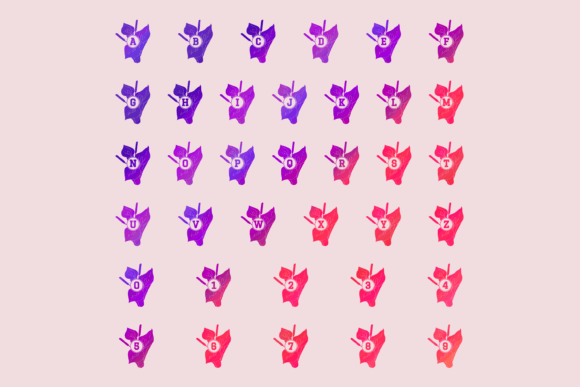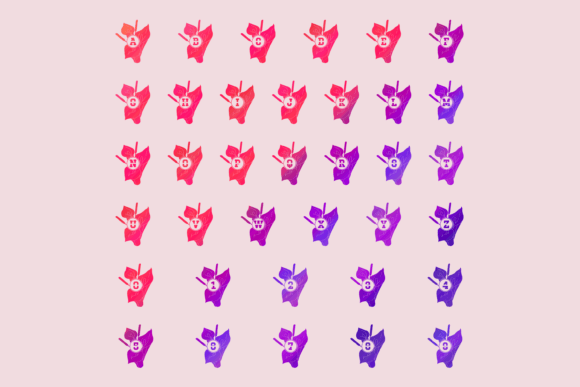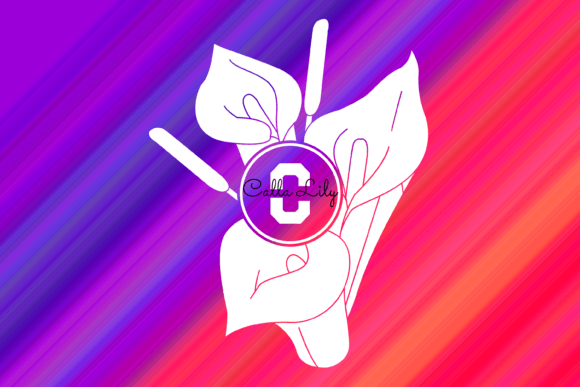
Introducing the Elegant Calla Lily Font: Elevate Your Crafts with a Touch of Sophistication
Are you a designer, crafter, or DIY enthusiast looking for a font that exudes elegance and sophistication? Look no further than the Calla Lily Font, a beautiful botanical decorative font that is sure to add a lovely touch to your creations. In this article, we’ll explore the features and benefits of the Calla Lily Font, and how it can be used to take your crafts to the next level.
What is Calla Lily Font?
Calla Lily Font is a stunning botanical decorative font that consists of two styles: regular and split. This duo-style font offers versatility and flexibility, allowing you to experiment with different designs and creative ideas. The font’s elegant and refined aesthetic makes it perfect for a wide range of applications, from custom designs and DIY crafts to stationery, packaging, and more.
Key Features of Calla Lily Font
- Dual Styles: The Calla Lily Font comes in two styles: regular and split. This allows you to mix and match the styles to create unique and visually appealing designs.
- Elegant and Refined: The font’s elegant and refined aesthetic makes it perfect for designs that require a touch of sophistication and luxury.
- Botanical Inspiration: The Calla Lily Font is inspired by the beautiful and exotic Calla Lily flower, adding a touch of natural beauty to your designs.
- Highly Versatile: The font can be used for a wide range of applications, from custom designs and DIY crafts to stationery, packaging, and more.
Benefits of Using Calla Lily Font
So, why choose the Calla Lily Font for your next project? Here are just a few benefits of using this beautiful font:
- Adds a Touch of Elegance: The Calla Lily Font adds a touch of elegance and sophistication to your designs, making them stand out from the crowd.
- Increases Creativity: The font’s dual styles and elegant aesthetic inspire creativity and experimentation, allowing you to push the boundaries of your designs.
- Perfect for DIY Crafts: The Calla Lily Font is ideal for DIY crafts, such as scrapbooking, card making, and other paper crafts.
How to Use Calla Lily Font in Your Designs
Using the Calla Lily Font in your designs is easy and straightforward. Here are a few tips to get you started:
- Pair with Other Fonts: Pair the Calla Lily Font with other fonts to create a unique and visually appealing design.
- Use for Headings and Titles: Use the Calla Lily Font for headings and titles to add a touch of elegance and sophistication.
- Get Creative with DIY Crafts: Use the Calla Lily Font to create custom DIY crafts, such as scrapbook pages, cards, and other paper crafts.
In conclusion, the Calla Lily Font is a beautiful and elegant botanical decorative font that is perfect for designers, crafters, and DIY enthusiasts. With its dual styles, elegant aesthetic, and versatility, this font is sure to add a lovely touch to your creations. Whether you’re looking to create custom designs, DIY crafts, or just want to add a touch of sophistication to your projects, the Calla Lily Font is an excellent choice.